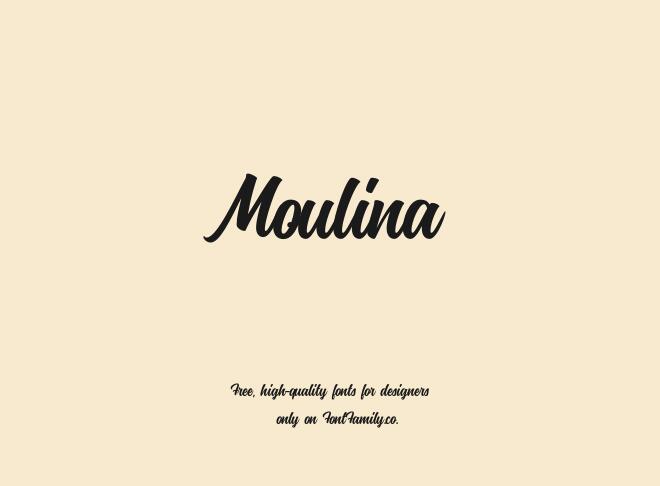
Moulina Font
Moulina Font is a beautifully handcrafted modern script typeface that oozes elegance and sophistication. With its delicate and flowing characters, Moulina Font evokes a sense of creativity and individuality, making it perfect for branding, logo design, and wedding invitations. Comparable to fonts like 'Great Vibes' and 'Allura', Moulina Font offers a more unique and personal touch. Its modern yet timeless appeal makes it a popular choice among designers. The font's versatility allows it to be used in a variety of design contexts, from digital to print. If you're looking for a font that combines modern design trends with classic elegance, Moulina Font is a great choice.